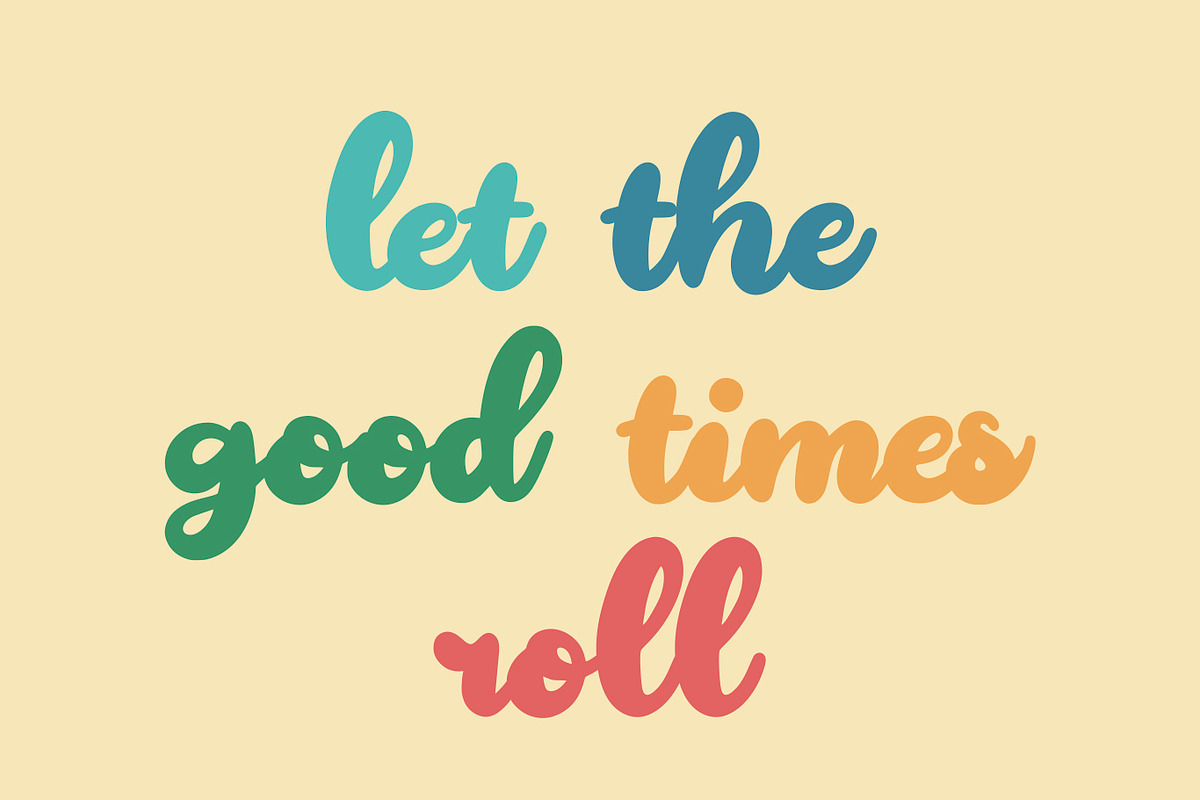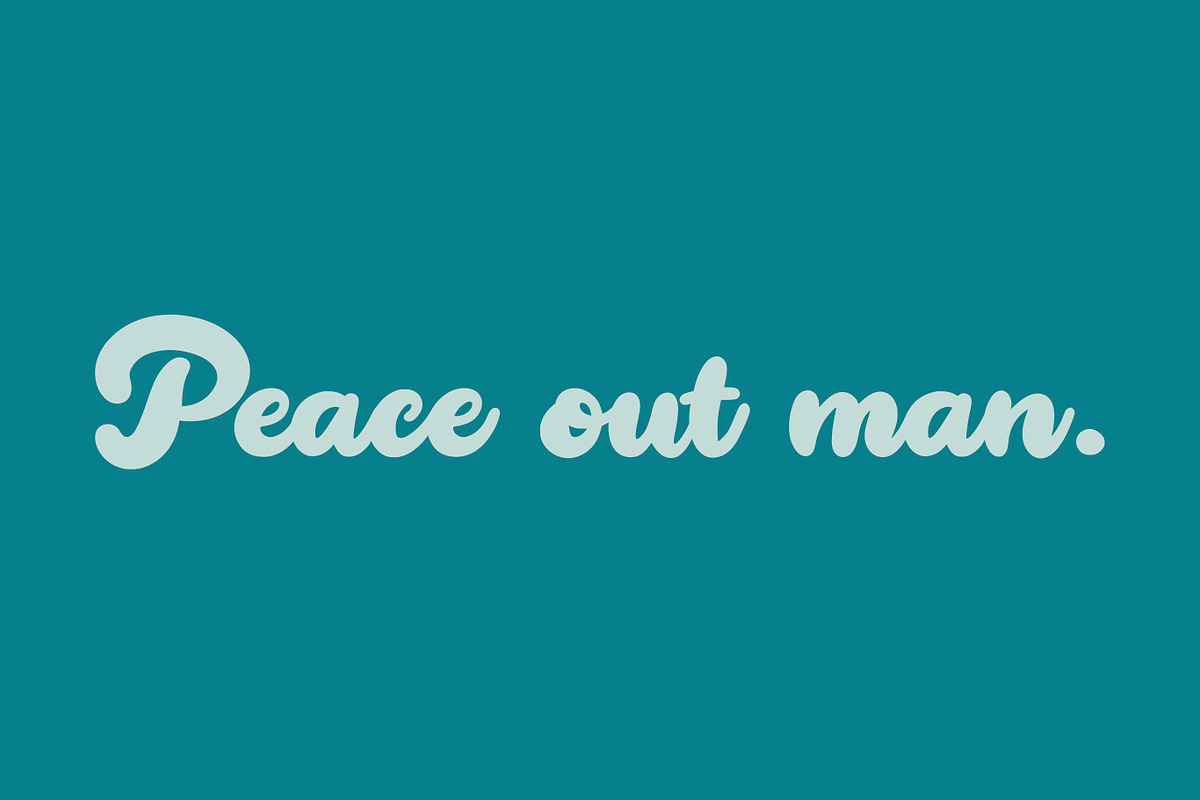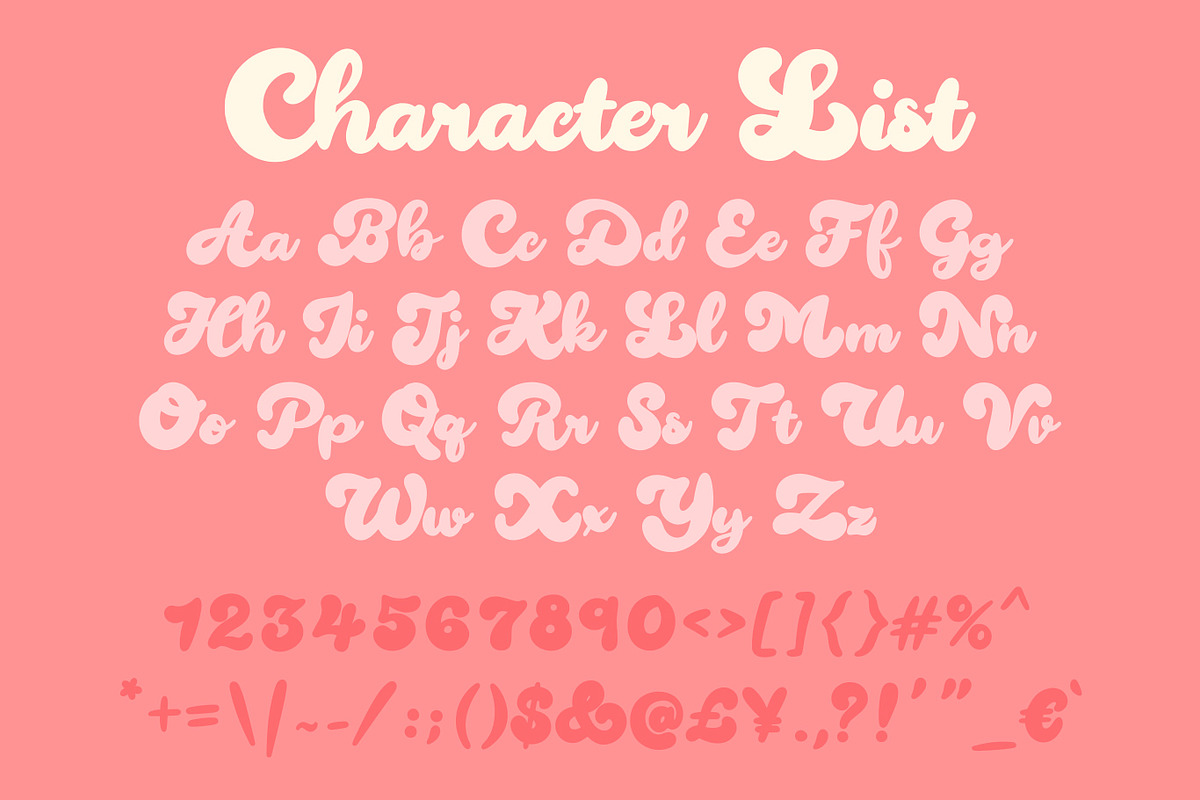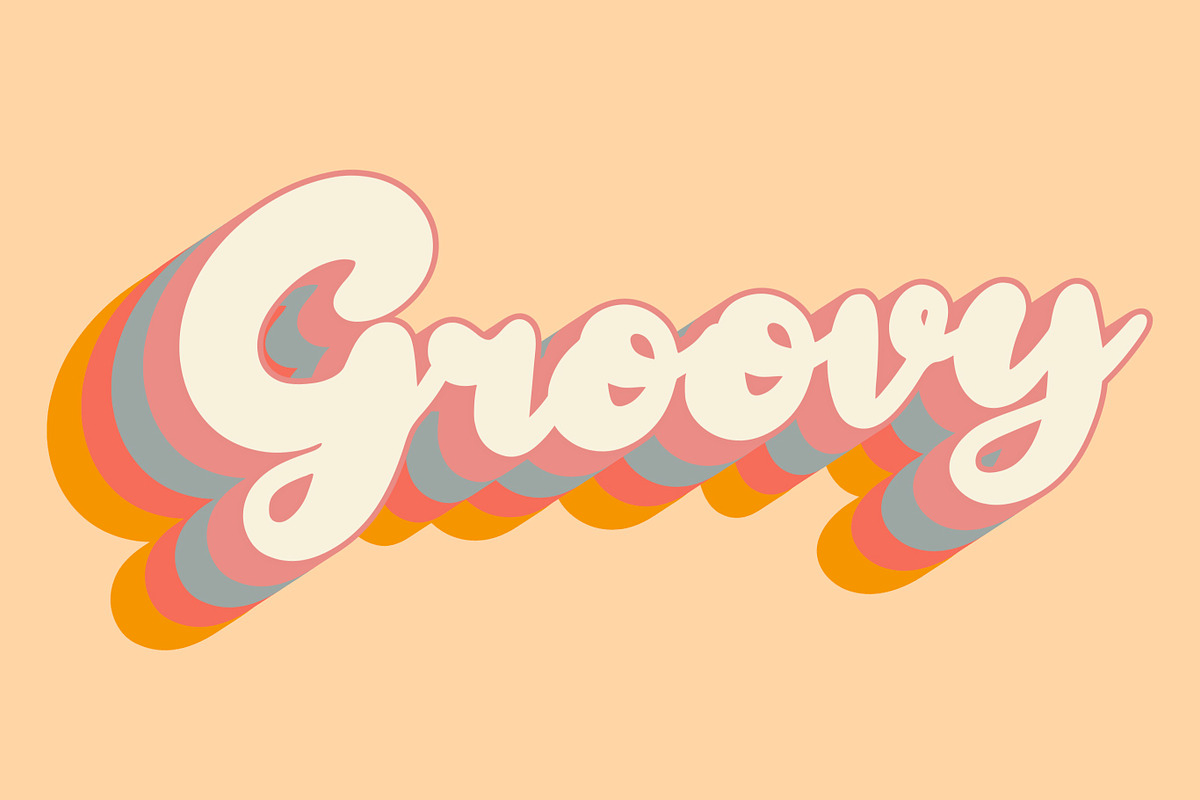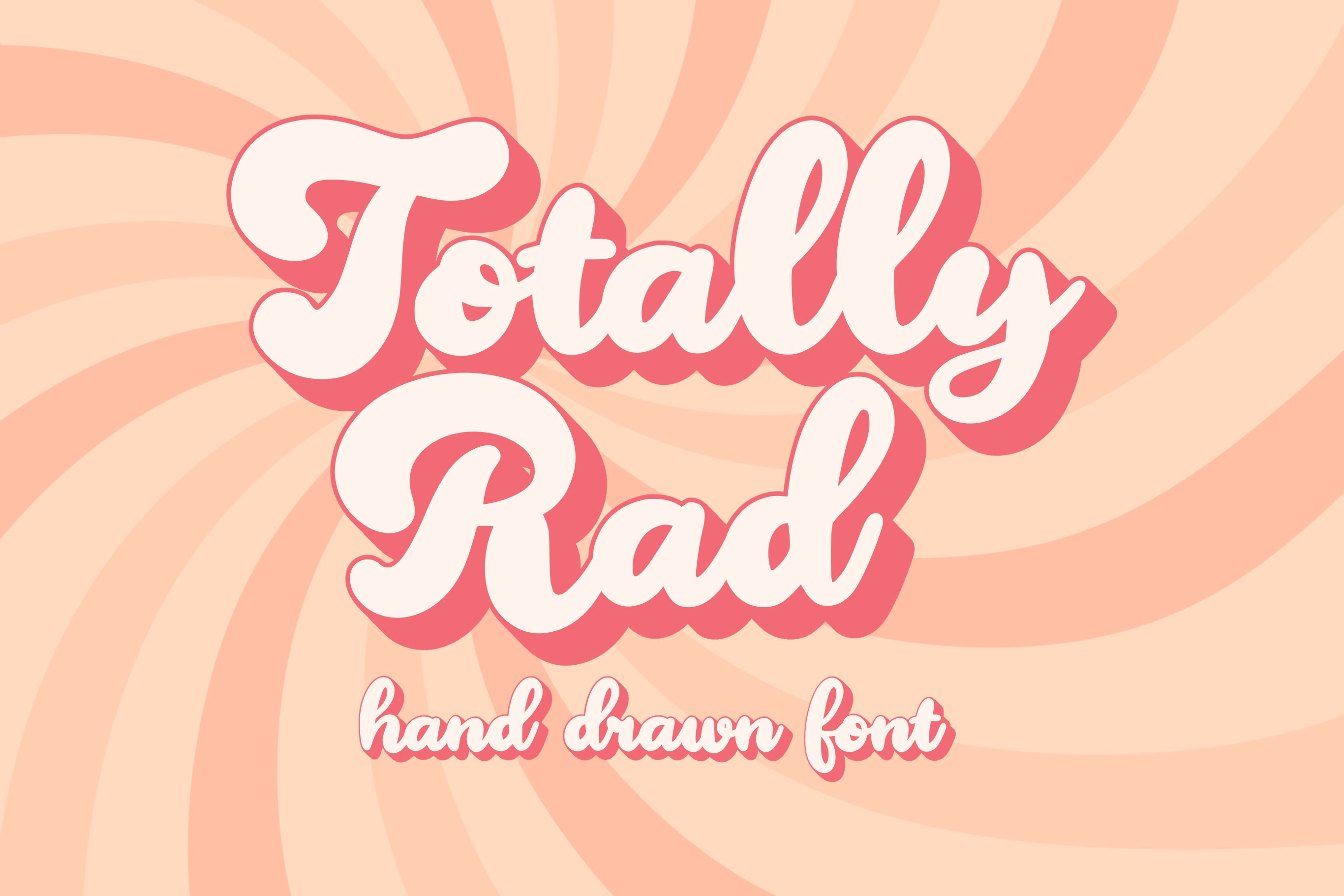
Totally Rad - Retro Font
Introducing the Totally Rad font! This font is a bold round script perfect for vintage and retro designs on logos, tshirts, branding, books, posters, packaging, labels, invitations, etc. This playful font has a soft curvy profile, giving an almost bubbly feel!